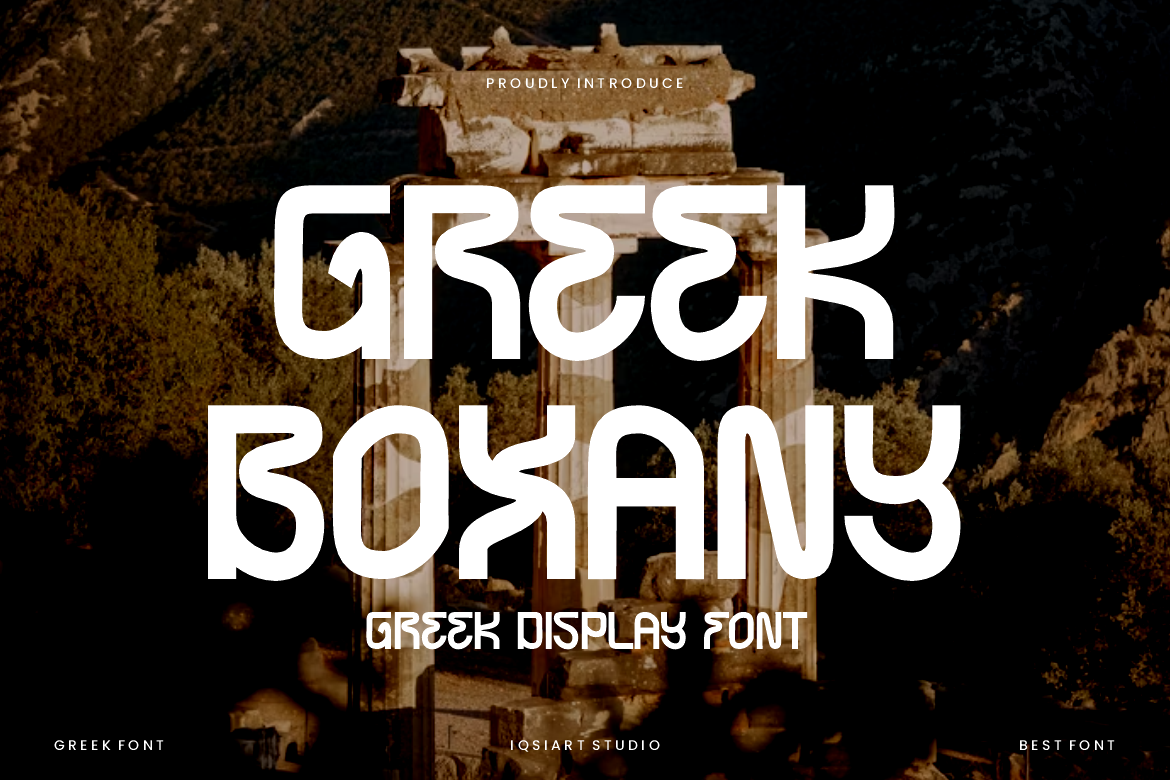
Greek Boxany - Typeface Font
Greek Boxany Font is a best and authentic display font. This font can be used for your various needs. We provide various themes and font styles. visit our profile to get a wide variety of themes and different font styles you need.